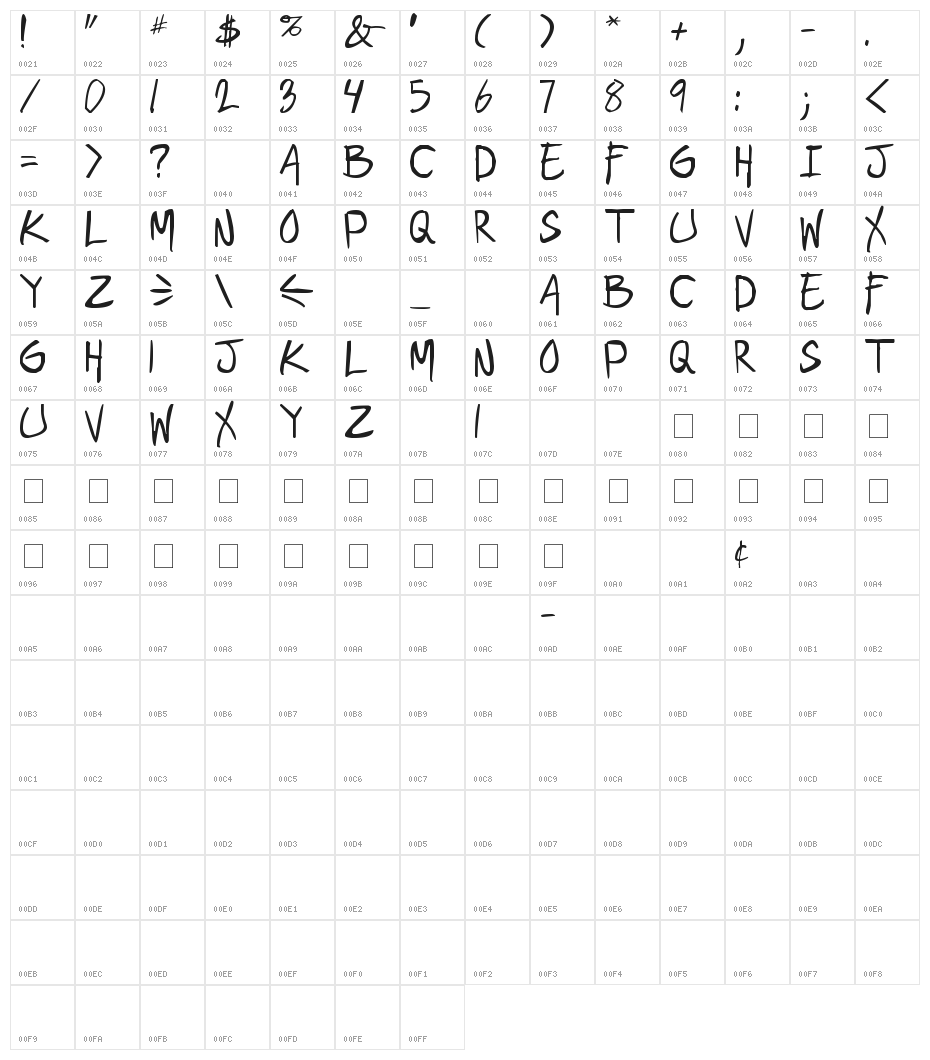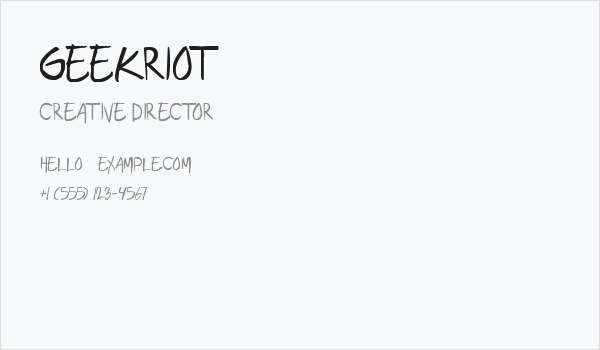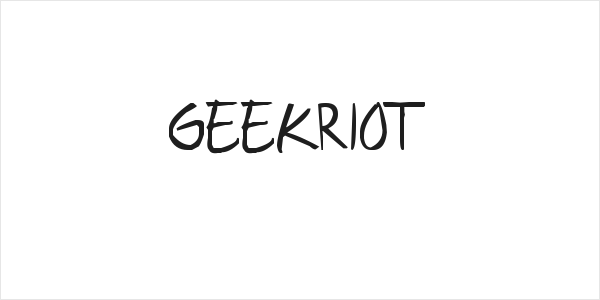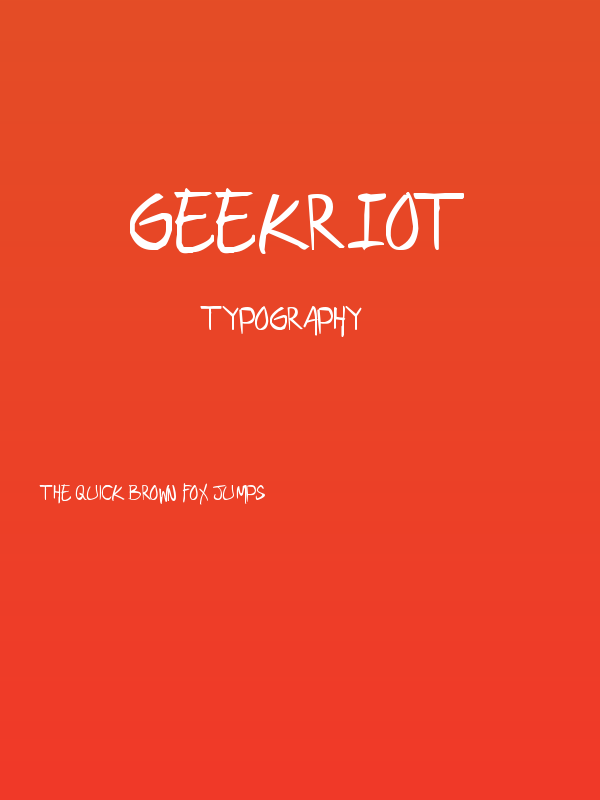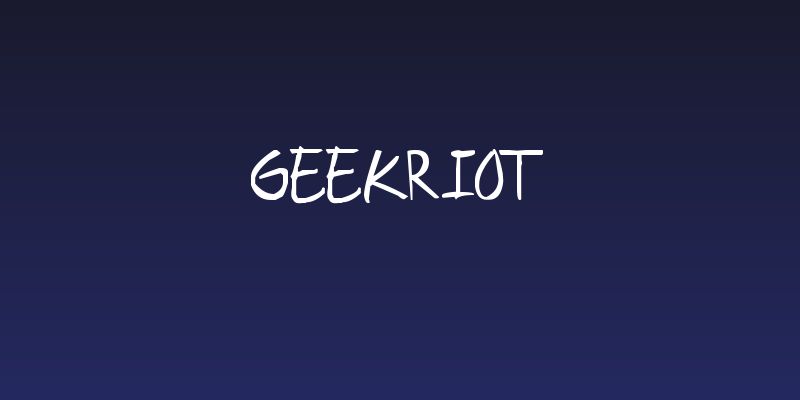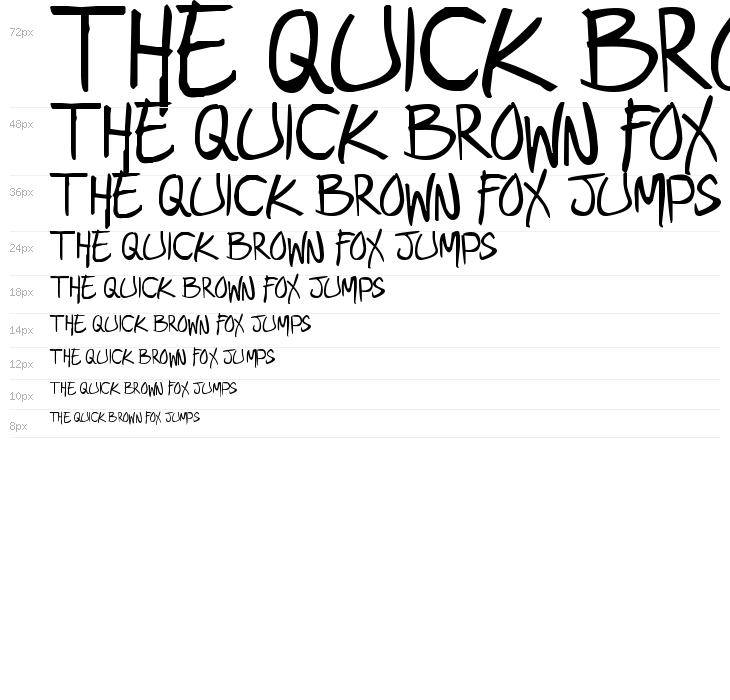
geekriot Font
geekriot Description
This font features a bold and expressive handwritten style, characterized by its dynamic and energetic strokes. The letters are slightly slanted, giving a sense of movement and spontaneity. The uppercase and lowercase letters maintain a consistent style, with a playful yet legible appearance. The numbers and special characters follow the same lively design, making the font versatile for various creative applications. The overall look is casual and informal, perfect for projects that require a personal touch.
| Proposed Projects | Ideal for posters, greeting cards, social media graphics, and branding that seeks a personal and informal touch. |